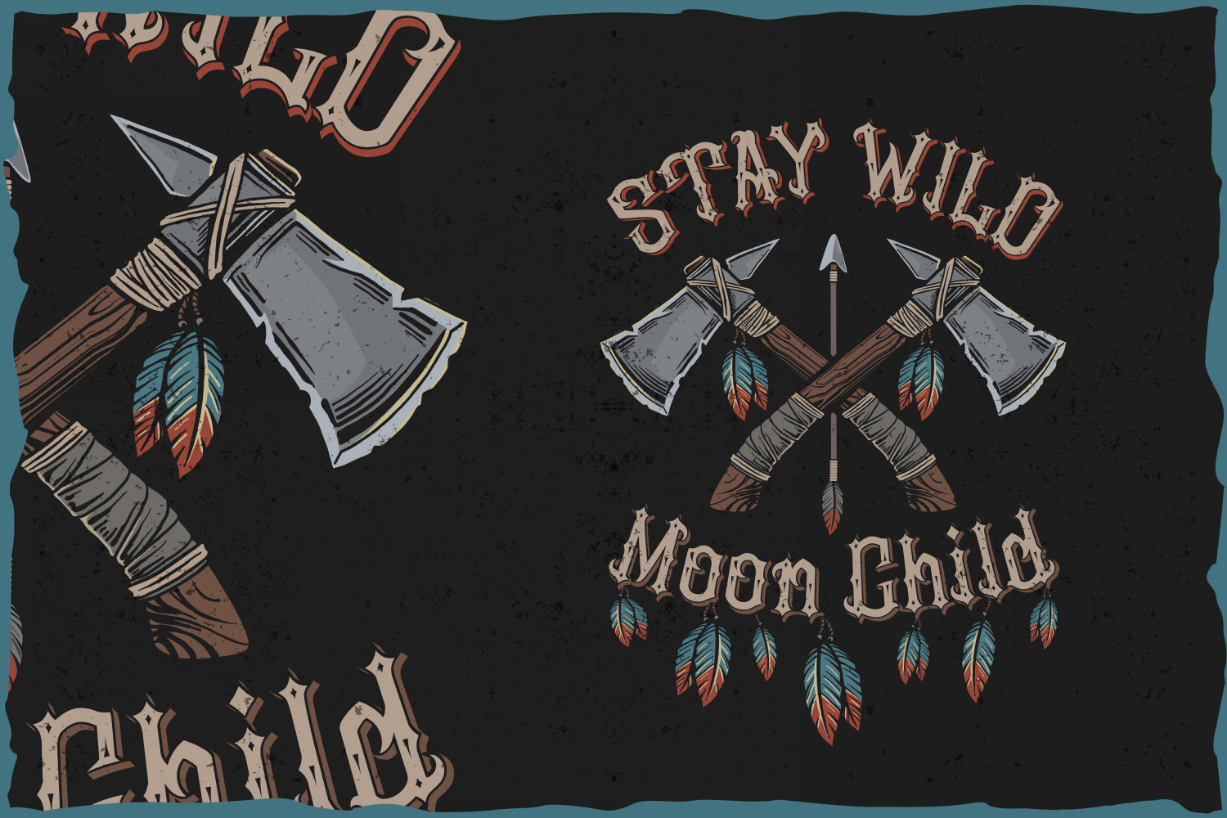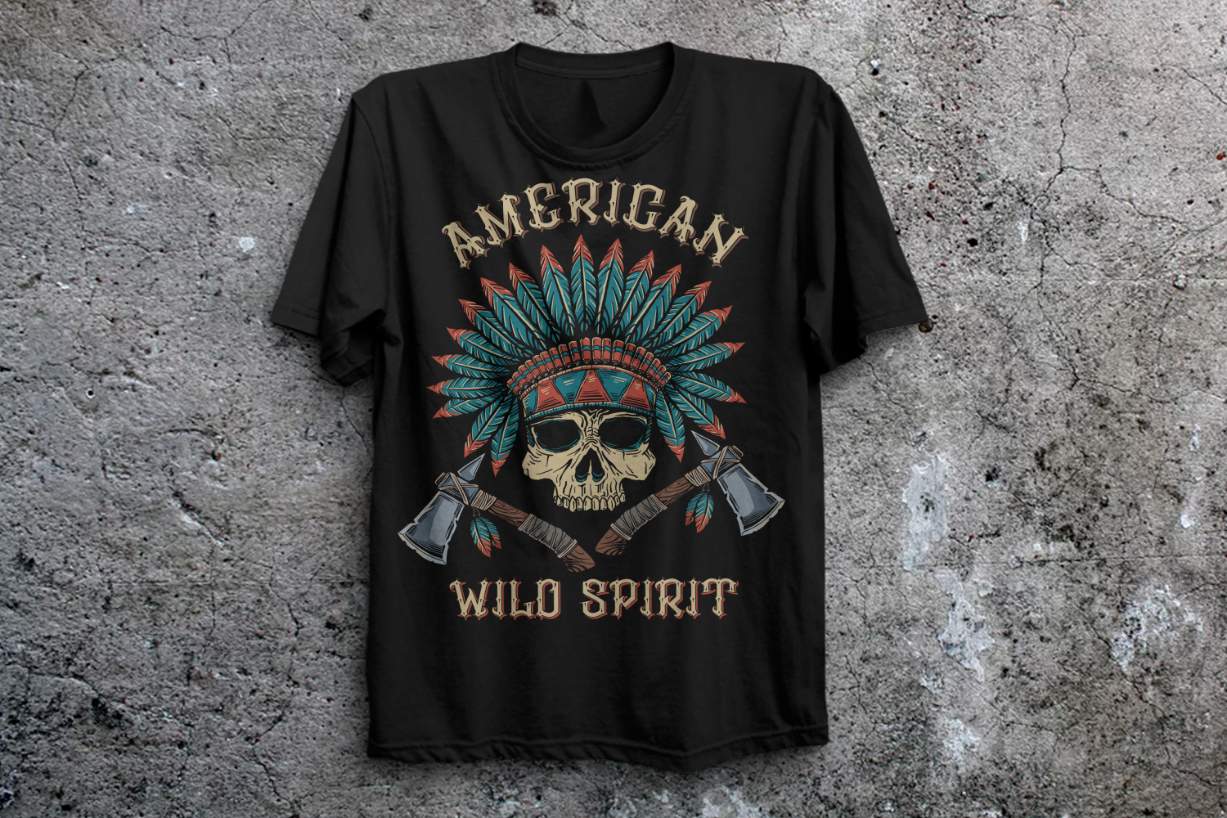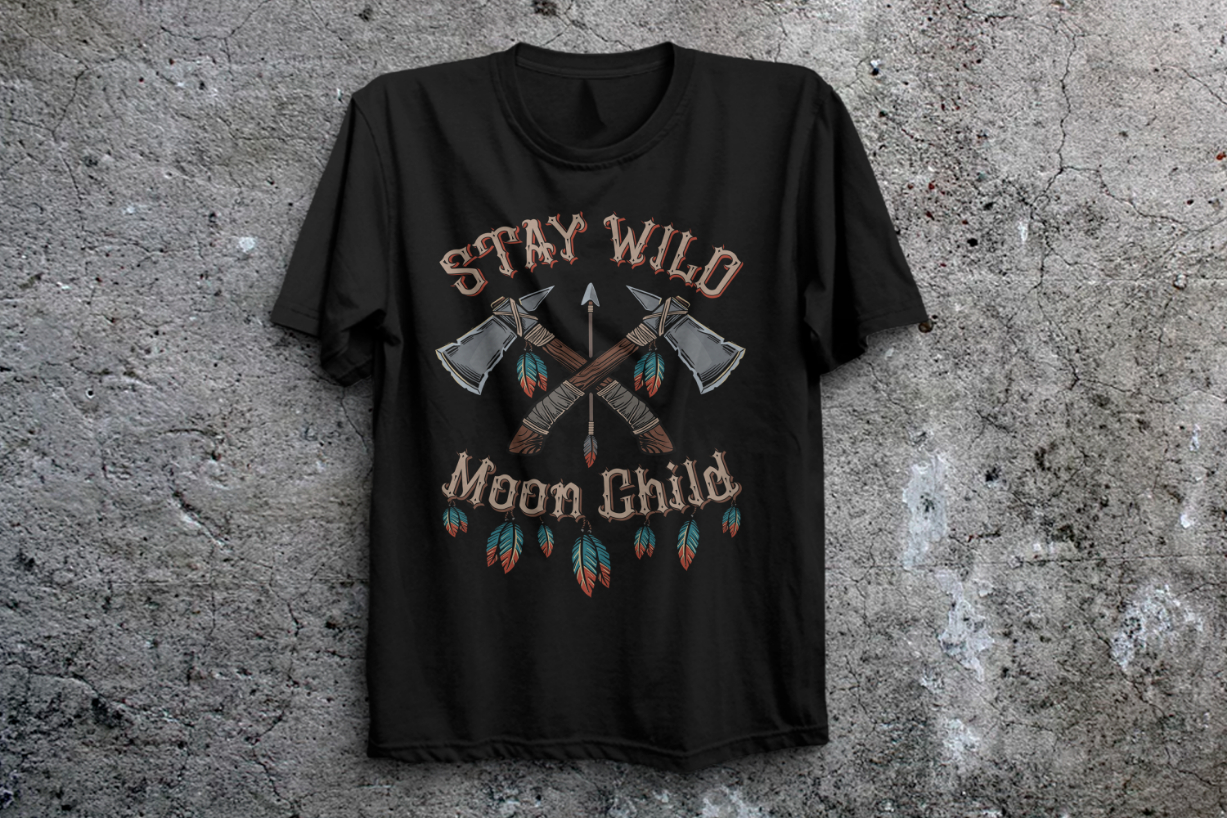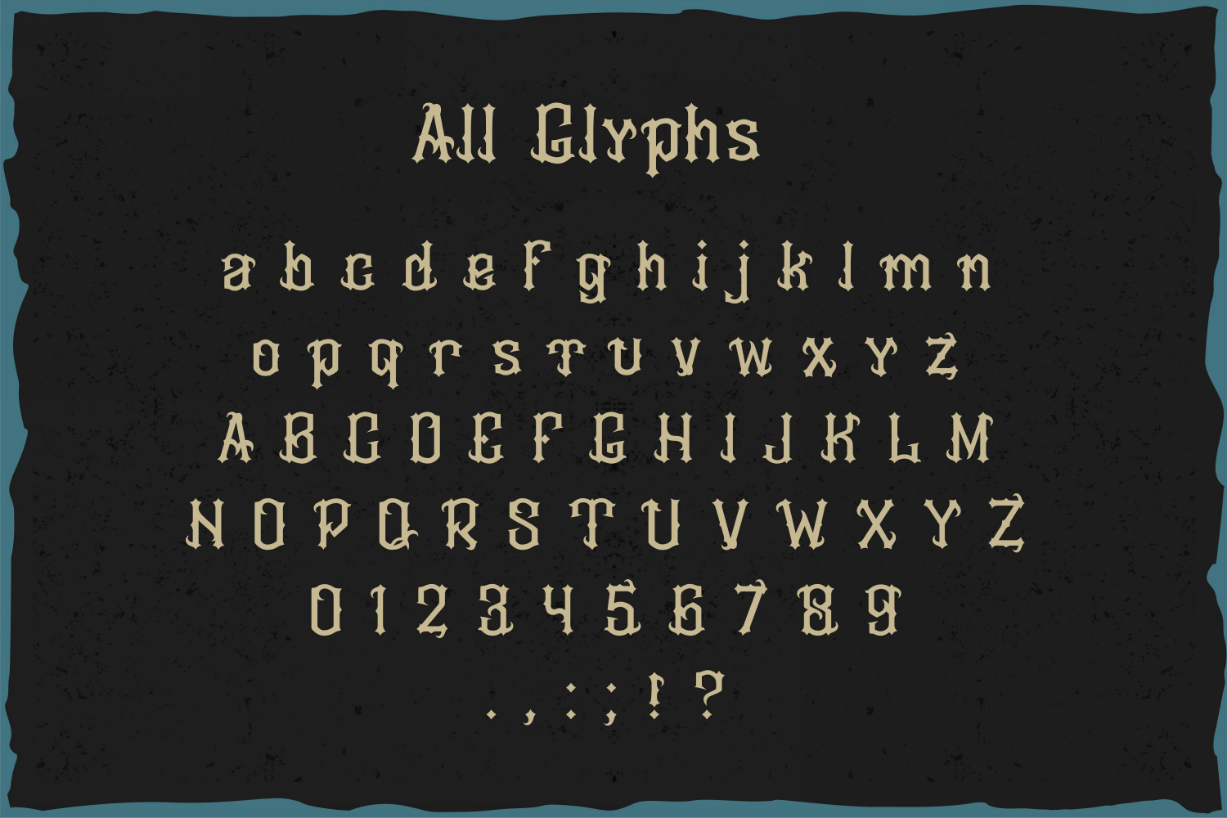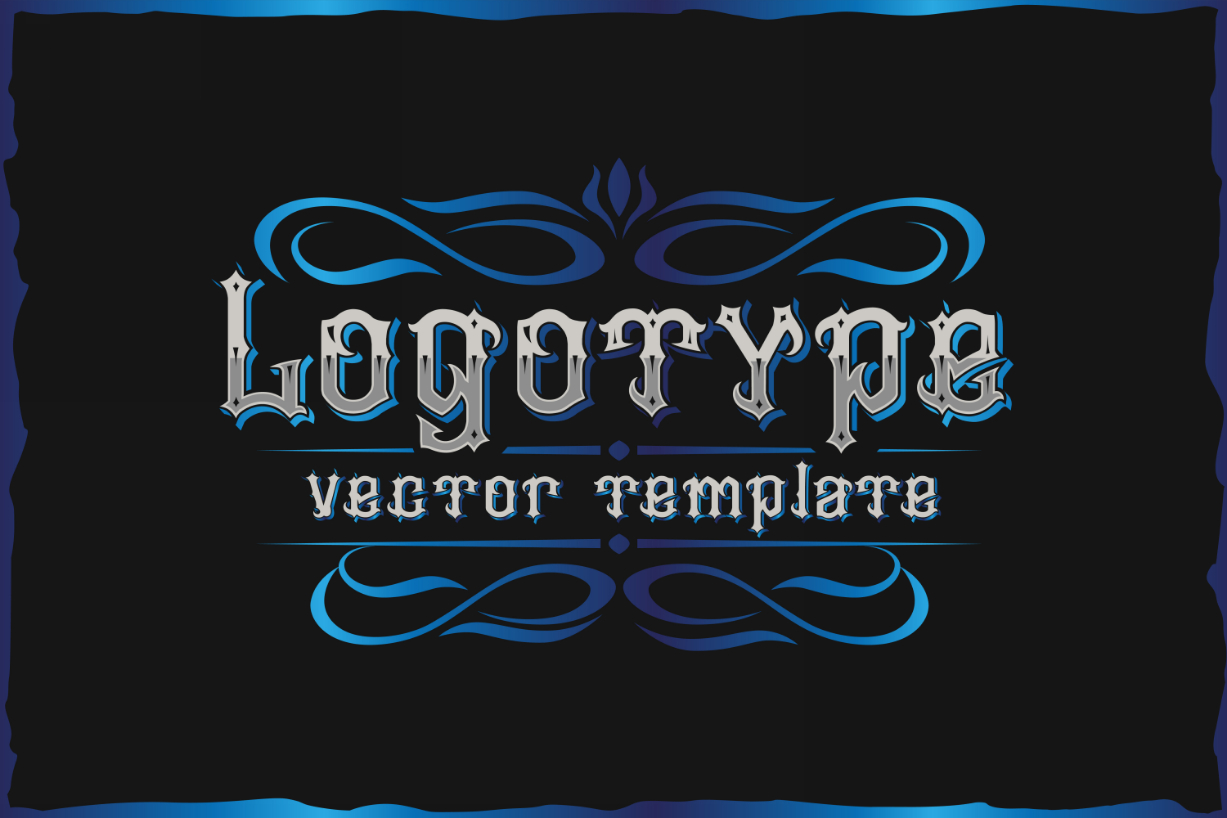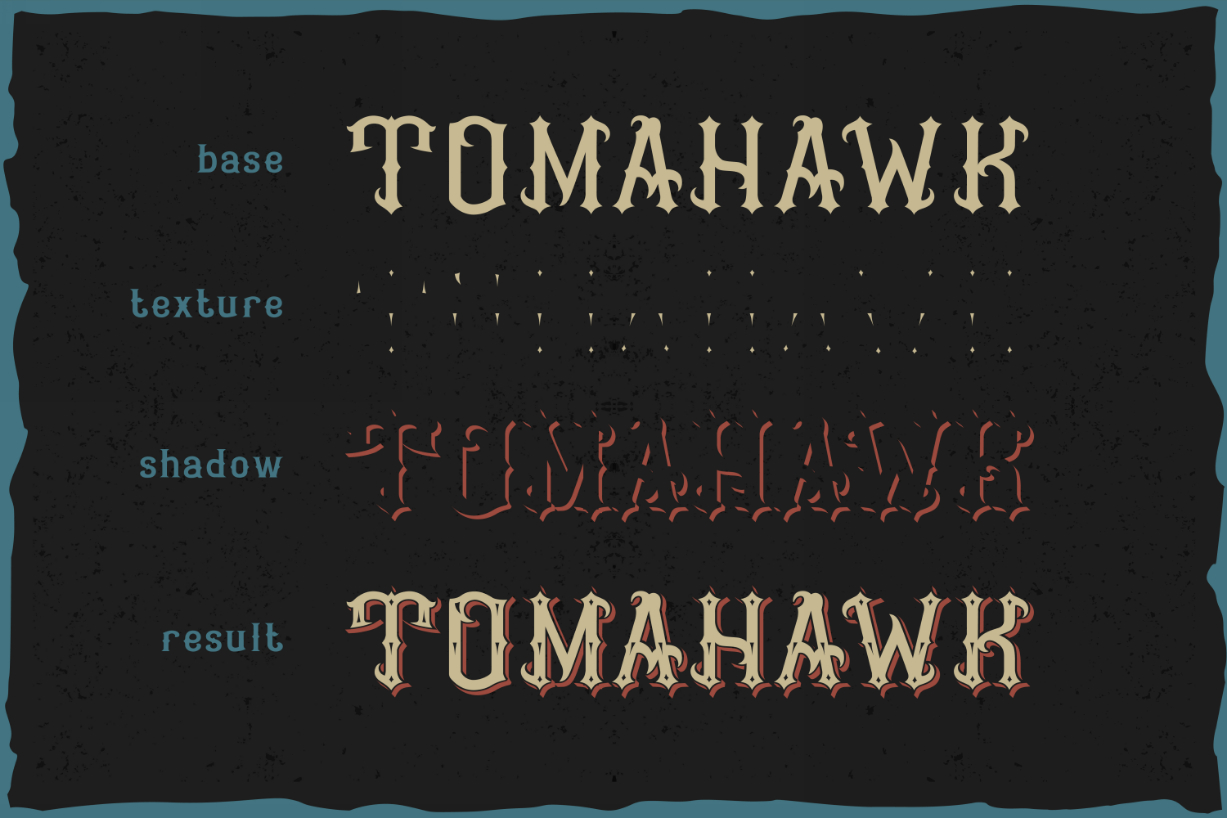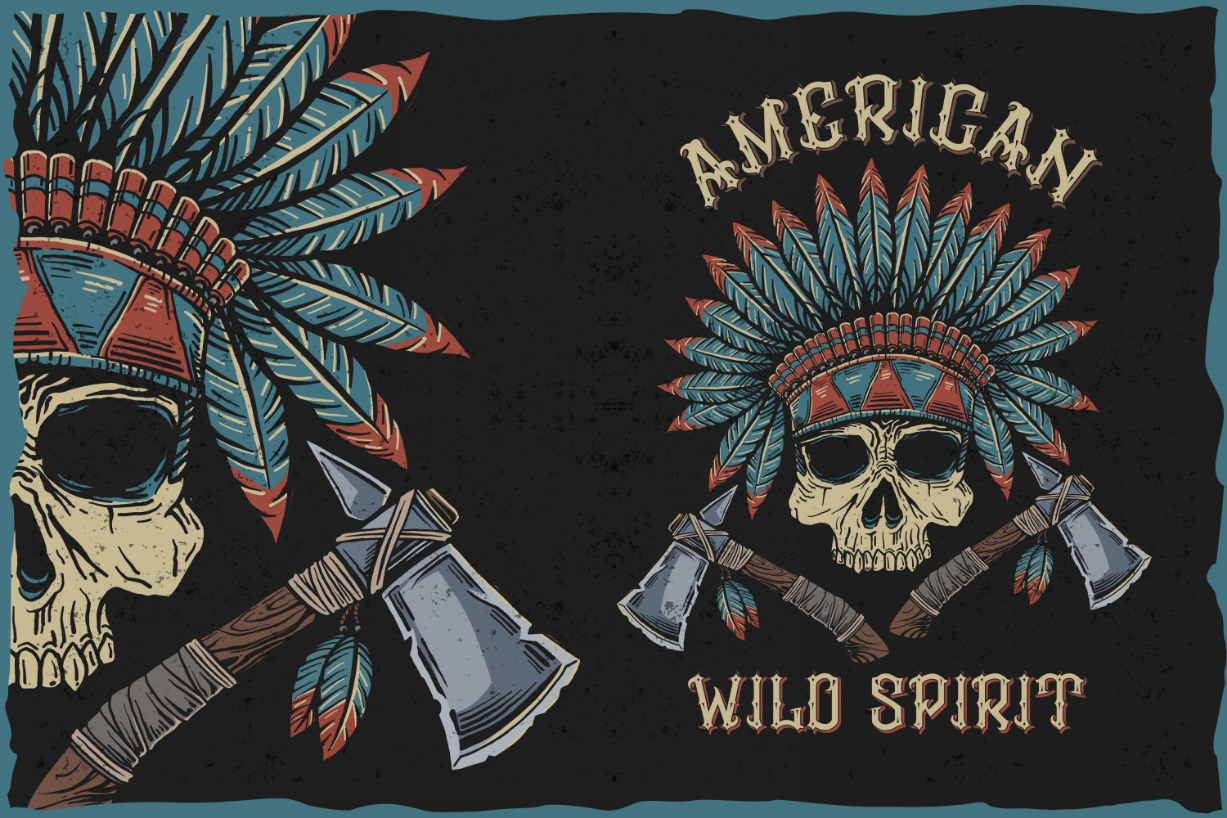
Tomahawk Font
About Tomahawk Font
Tomahawk is a cool and authentic blackletter font. Imposing and genuine, this font will instantly make your designs stand out.